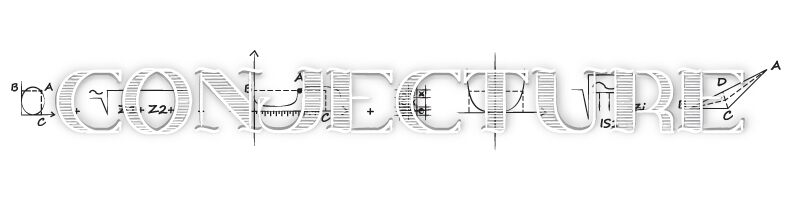
Conjecture is a free old-school decorative display font with a hand-drawn take on classical Roman capitals. Tall, narrow, fine-lined letters combine sharp wedge serifs with deliberately uneven contours and closely spaced horizontal hatching, giving the forms the look of an eccentric engraved alphabet.
For theatrical and literary audiences, it suits posters, book covers, and event programs. The striped interiors connect especially well with pen-and-ink illustration, antique maps, or etched decorative borders, allowing the lettering to become part of the drawn artwork rather than a separate typographic layer on the printed page.